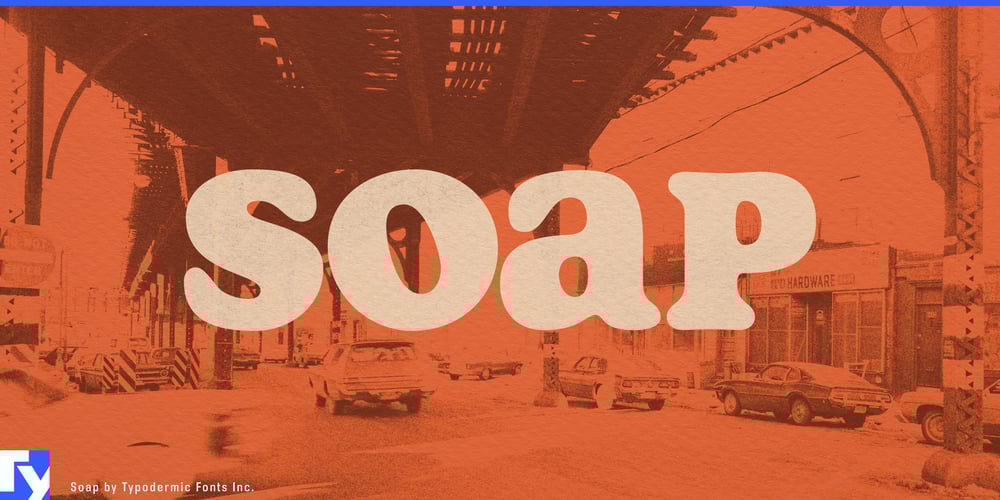
Soap Font Family was designed by Ray Larabie and published by Typodermic. Soap contains 3 styles and family package options. Soap reimagines the classic Cooper Black with a contemporary twist, offering a typeface that’s as smooth and inviting as its name suggests. This laid-back font family brings a refreshing coolness to your designs, effortlessly blending retro charm with modern sensibilities.At the heart of Soap’s appeal are its unicase letterforms—soft, rounded characters that create a cohesive and visually pleasing aesthetic. The typeface’s tight spacing adds a punchy dynamism, perfect for making your headlines pop or giving your body text a distinctive flair. Soap’s versatility shines through its ability to perform admirably in both display and text settings, making it a valuable addition to any designer’s toolkit. For those seeking typographic finesse, Soap offers an alternate lowercase-style “T” accessible through OpenType-savvy applications. This thoughtful addition provides subtle variety and enhances the typeface’s flexibility across different design contexts.Soap doesn’t stop at a single style—it comes in a trio of variations to suit your creative vision. Alongside the clean, polished base version, you’ll find Soap Stamp and Soap Spraypaint. These grittier alternatives introduce an edgy, urban feel to your work with their straggly letter variations, ensuring your designs never fall into monotony. This typeface family speaks volumes in numerous languages, supporting a wide array of Latin-based European writing systems. From French to Finnish, Portuguese to Polish, Soap communicates your message with clarity and style across linguistic borders. Its extensive language support makes it an ideal choice for international branding, multilingual publications, or global marketing campaigns.Infuse your next project with Soap’s unique blend of relaxed coolness and typographic sophistication. Whether you’re crafting sleek editorial layouts, eye-catching posters, or distinctive brand identities, Soap delivers a fresh, contemporary voice to your designs. Embrace the smooth, make a statement, and let Soap elevate your typography game to new heights.